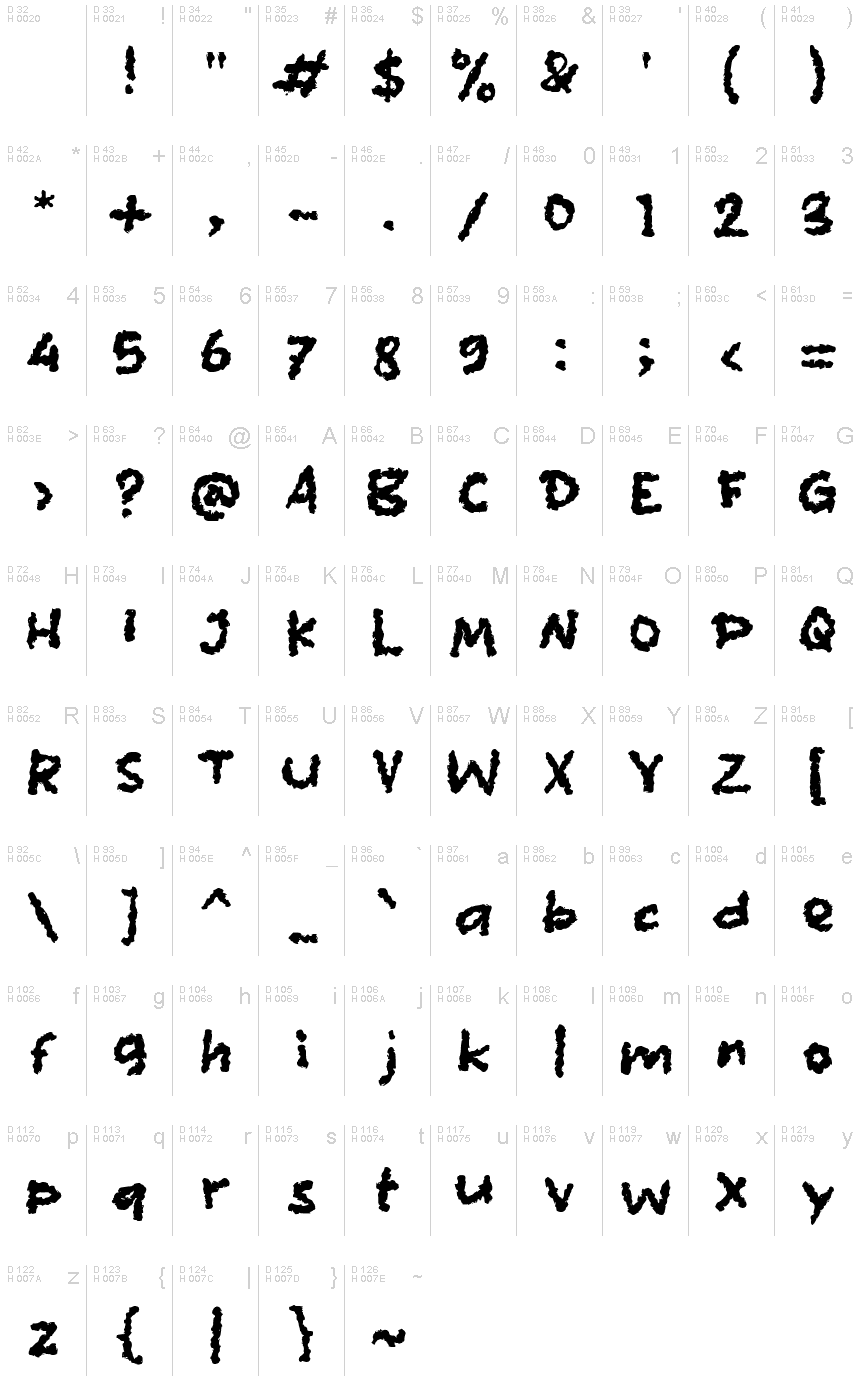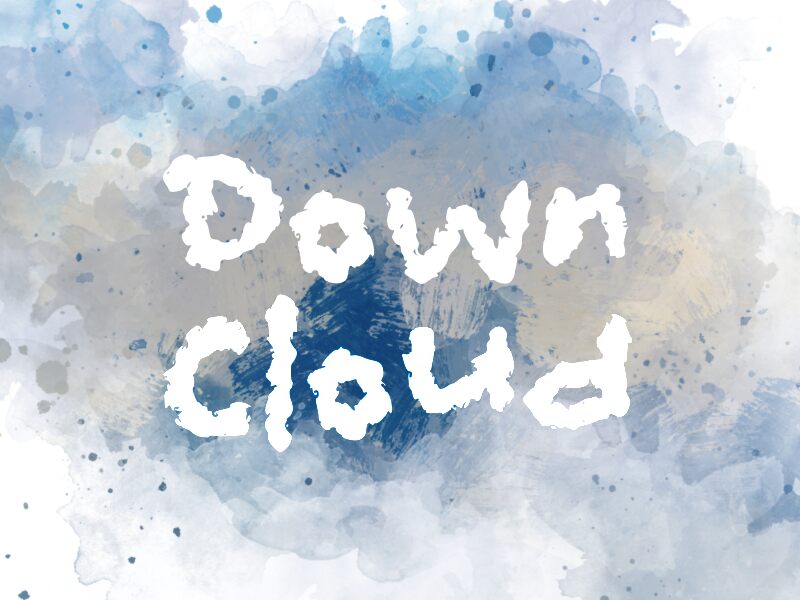
Down Cloud
Down Cloud by Wahyu Eka Prasetya is a bold, wide script font with a trash style. It is perfect for adding an edge to any project requiring an unconventional and creative flair, such as movie posters, logos and book covers.